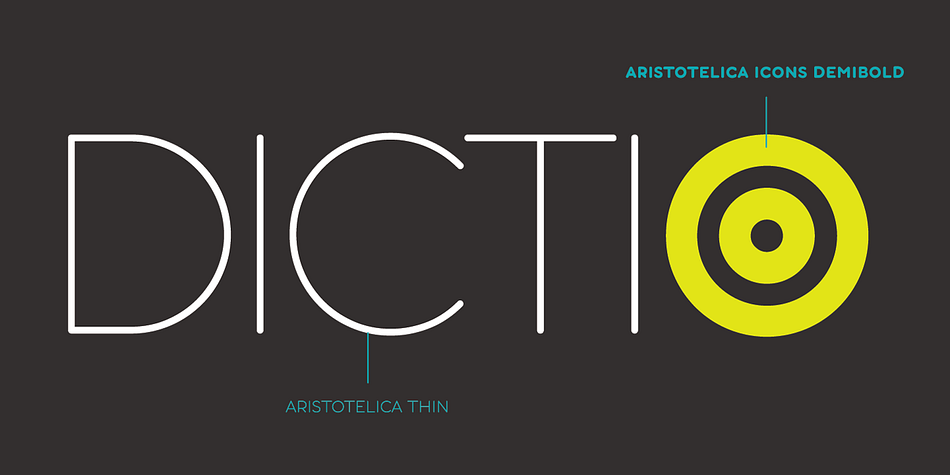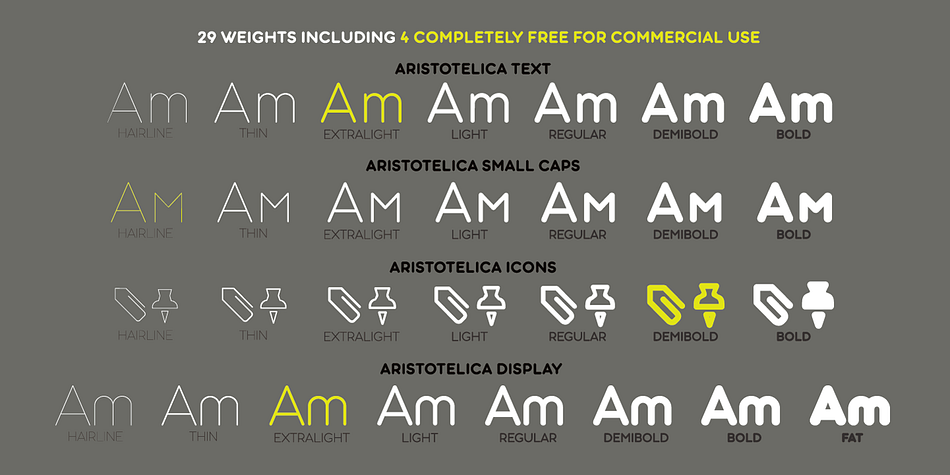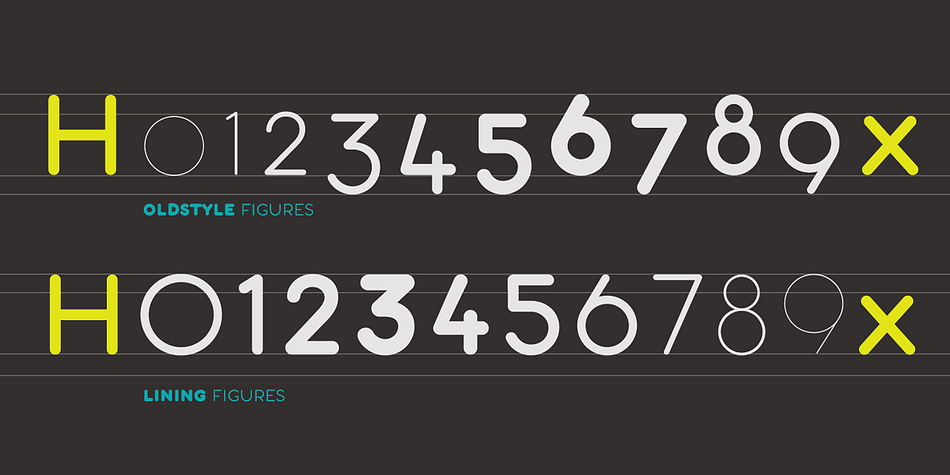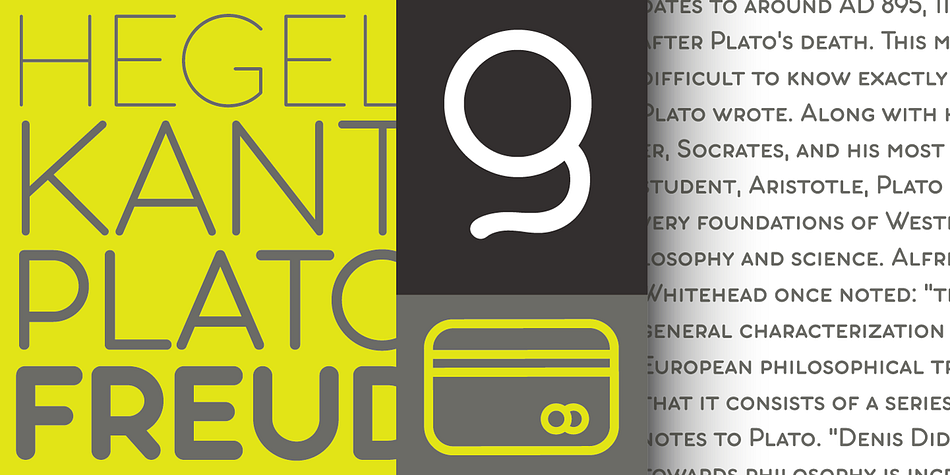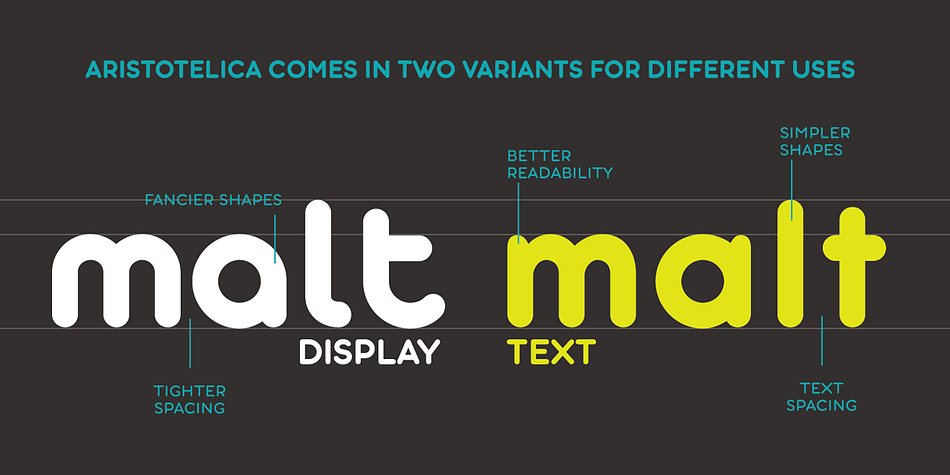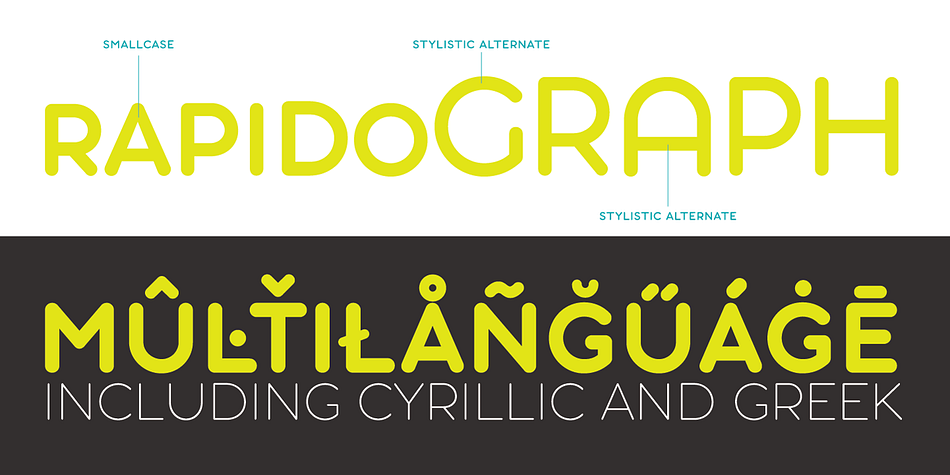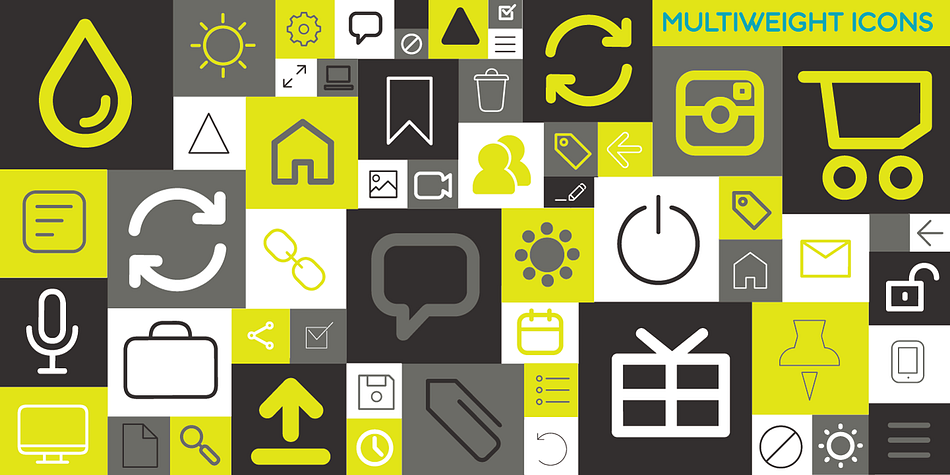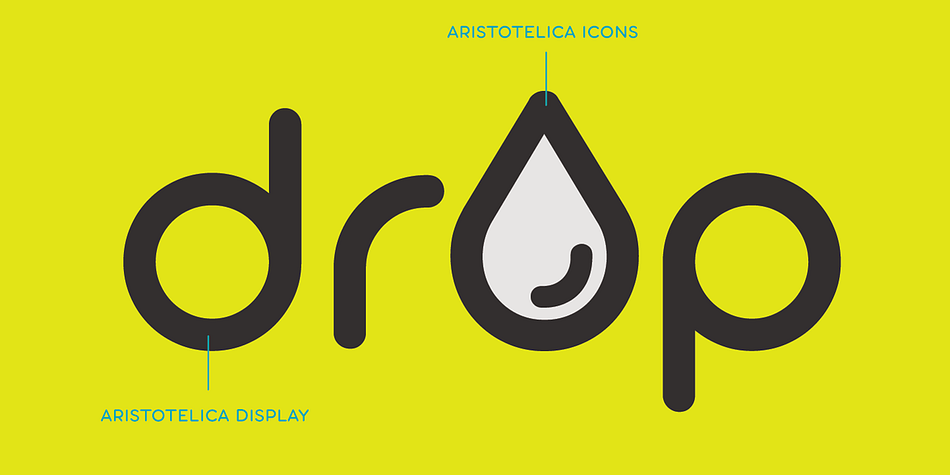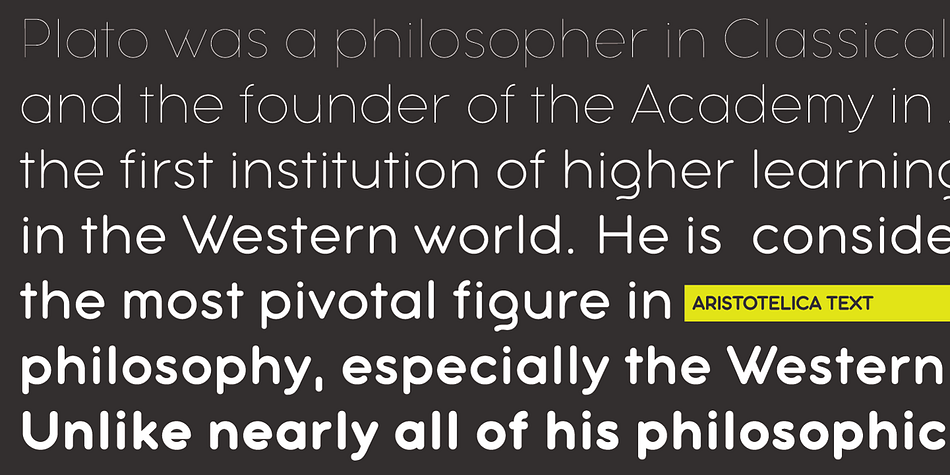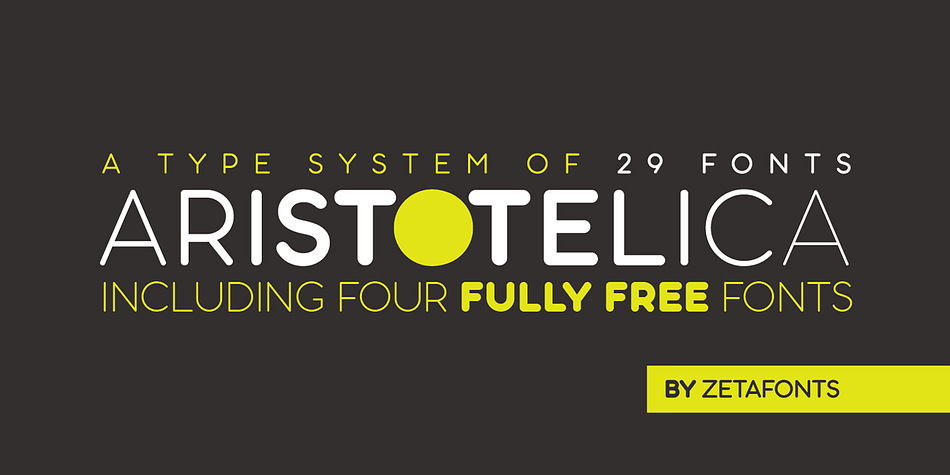
Designed by Cosimo Lorenzo Pancini and Andrea Tartarelli, Aristotelica is a dingbat, sans serif and display sans font family. This typeface has twenty-nine styles and was published by Zetafonts.
Aristotelica is a sans serif rounded geometric type family.
This font shows its strengths mostly in display uses and logo design. A text variant, Aristotelica Text, has been developed for 7 out of the 8 display weights, applying slight corrections to design and metrics to allow the perfect legibility in paragraph text.
The family is further enriched by the inclusion of Aristotelica Icons, a set of matching variable-width monoline icons that can be used to faultlessly match the typeface line width.
All Aristotelica fonts include Greek and Cyrillic alphabets as well as an extended range of Latin characters, covering over forty languages. Open type features include stylistic alternates, old style and lining figures and small caps.